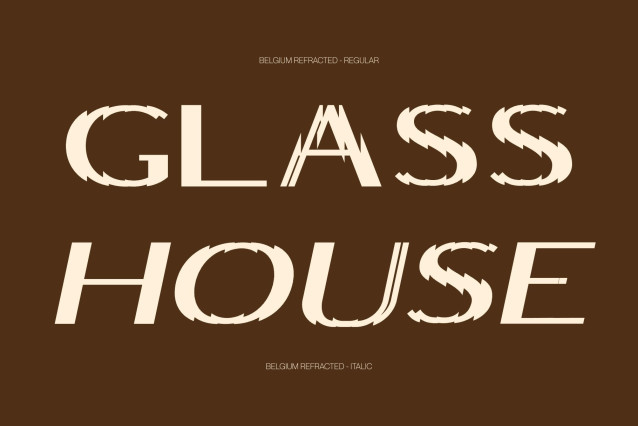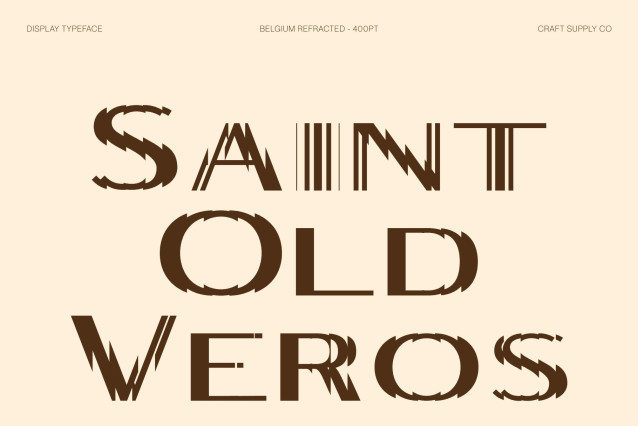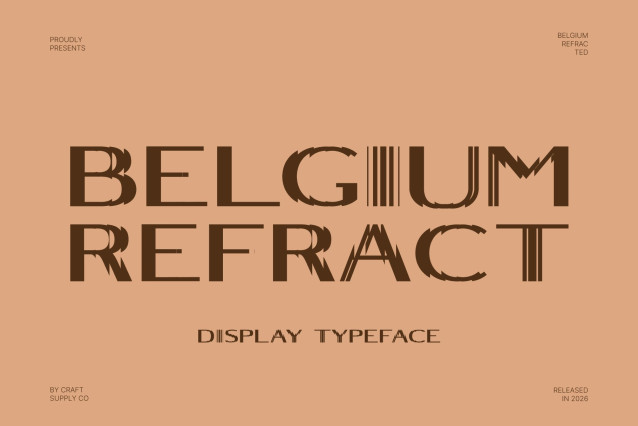
Belgium Refracted – Modern Sans Serif Font: Where Minimalist Elegance Meets Futuristic Refraction
Clean Minimalist Forms with Refined Sophistication
This is a modern sans serif font that features clean minimalist shapes and balanced contemporary proportions, creating a refined and sophisticated visual identity. Its simple yet striking structure delivers elegance, professionalism, and modern clarity, making every character feel polished and highly versatile. The font is designed to bring sleek contemporary style into both digital and print compositions.
Refracted Effect with Futuristic Fragmentation
This font features glitch-inspired light refraction details that create fragmented cuts, geometric slices, and layered distortions across the letterforms. This futuristic effect introduces movement, digital depth, and experimental visual energy while preserving the font’s clean and elegant appearance. The result is a modern style that feels sleek, artistic, and technologically inspired.